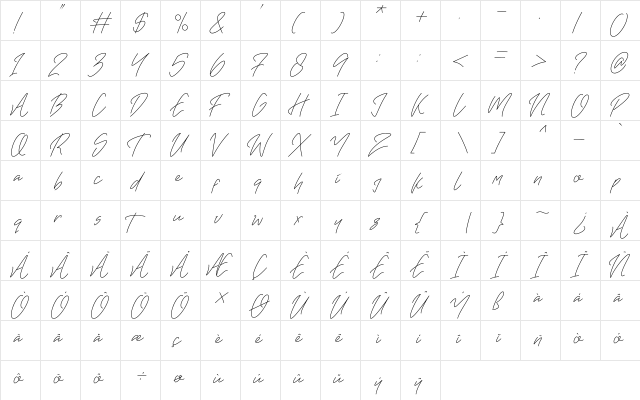
Darklight Regular
| Designer | Rayvaldo Rizki Pratama Augusta |
Design Context for Darklight Typeface
Darklight is a composed and adaptable typeface that performs quietly and consistently across a wide range of design contexts. Its slender proportions lend an understated elegance to any composition.